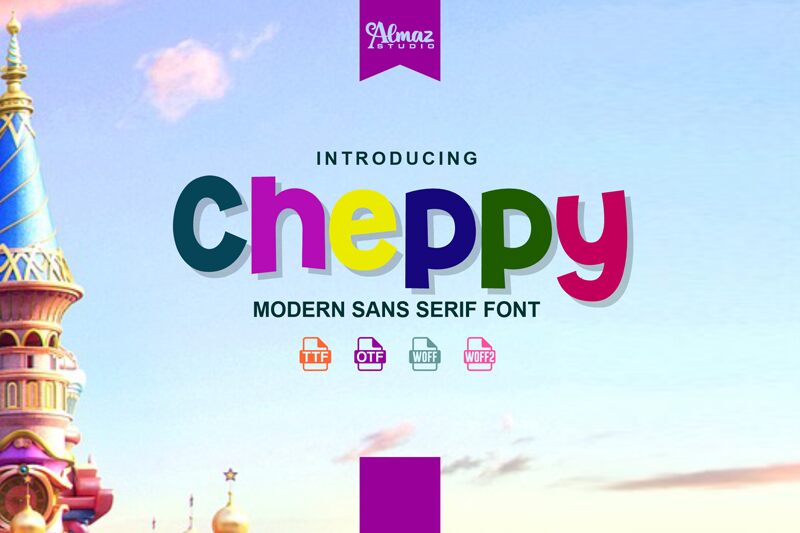
Cheppy font by Almaz Studio captures the essence of playful creativity with its bold, cartoonish style. As a display typeface, Cheppy commands attention with its unique and whimsical aesthetic, making it perfect for projects that require a lively and engaging presentation. The exaggerated curves and vibrant weight emphasize fun and approachability.
Ideal for children's books, posters, and branding that seeks an informal yet striking appearance, Cheppy's versatility shines in both print and digital formats. Designers looking to add character to their work will find this free font to be an invaluable asset. Download Cheppy today to infuse your projects with charm and personality.